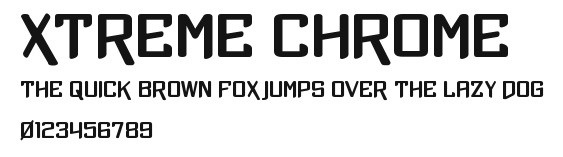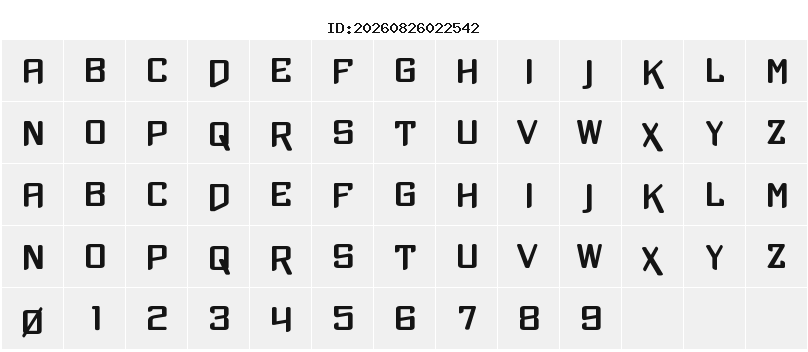
Xtreme Chrome Preview
• Font Name: Xtreme Chrome
• Font ID: Xtreme Chrome
• Full Font Name: Xtreme Chrome
• PostScript Name: XtremeChrome
• Copyright: 2006 Vic Fieger
About Xtreme Chrome.ttf
Xtreme Chrome.ttf is a modern, elegant sans-serif font designed for ultimate readability and visual harmony. Perfect for branding, headlines, web design, and print materials.